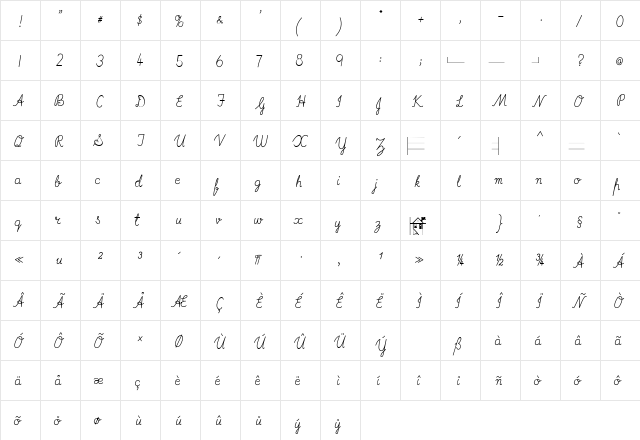
Imrans School 2 Italic
Design Context for Imrans School 2 Typeface
Imrans School 2 is a composed and adaptable typeface that performs quietly and consistently across a wide range of design contexts. Its italic angle brings a sense of urgency and motion to the letterforms.
Pro Tip: Try Imrans School 2 for annotation and caption copy alongside an upright companion — the contrast in angle creates a dynamic but ordered typographic system.